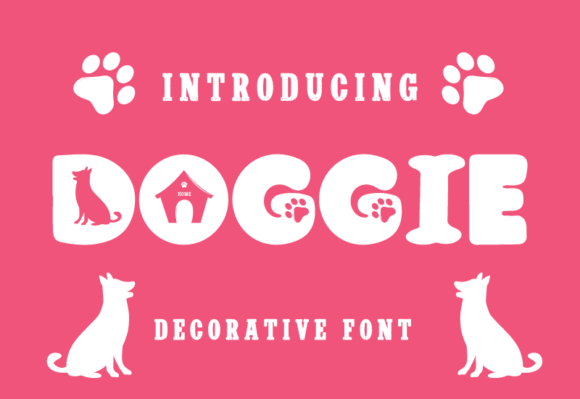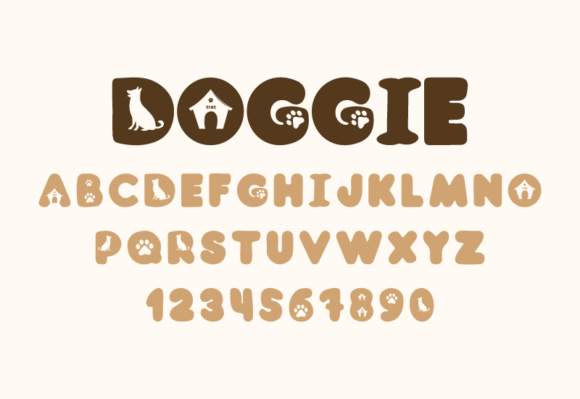
Unleash the Fun with Doggie Font: A Playful Typography for Pet Lovers and Design Enthusiasts
Are you a pet lover, designer, or crafter looking for a typography that captures the playfulness and charm of our furry friends? Look no further than Doggie Font, a unique and captivating typeface that artfully blends animal paw prints, delightful dog silhouettes, and whimsical kennel designs. This energizing font is sure to bring a smile to your face and a touch of personality to your design projects.
The Inspiration Behind Doggie Font
Doggie Font is a typography that celebrates the joy and companionship of dogs. The font’s creator was inspired by the adorable nature of dogs and the special bond they share with their human families. By combining paw prints, dog silhouettes, and kennel designs with traditional typography, Doggie Font brings a fresh and exciting twist to the world of design.
Key Features of Doggie Font
So, what makes Doggie Font so special? Here are some of its key features:
- Playful yet Elegant Elements: Doggie Font seamlessly blends playful and elegant elements, making it perfect for a wide range of design projects, from fun and quirky to sophisticated and stylish.
- Unique Glyphs: The font includes a range of unique glyphs, including dog paw prints, silhouettes, and kennel designs, which can be used to add a touch of personality to your designs.
- High-Quality Typography: Doggie Font is a high-quality typography that is clear, legible, and easy to read, making it perfect for use in a variety of design applications.
Uses for Doggie Font
Doggie Font is a versatile typography that can be used in a wide range of design projects, including:
- Pet-Themed Designs: Doggie Font is perfect for pet-themed designs, such as pet store logos, pet food packaging, and animal shelter marketing materials.
- Playful Stationery: Add a touch of personality to your stationery with Doggie Font, perfect for birthday cards, invitations, and other fun correspondence.
- Fun and Quirky Branding: Doggie Font is ideal for brands that want to convey a playful and fun personality, such as children’s clothing, toys, and games.
- Crafting and Scrapbooking: Doggie Font is a great addition to any crafter’s or scrapbooker’s toolkit, perfect for creating personalized and unique projects.
Tips for Using Doggie Font
Here are some tips for getting the most out of Doggie Font:
- Experiment with Different Sizes: Doggie Font looks great in a variety of sizes, from small and delicate to large and bold.
- Combine with Other Fonts: Try pairing Doggie Font with other fonts to create a unique and eye-catching design.
- Use the Unique Glyphs: Don’t be afraid to get creative with the unique glyphs in Doggie Font, such as the paw prints and dog silhouettes.
Doggie Font is a captivating typography that is sure to bring a touch of playfulness and charm to your design projects. With its unique blend of animal paw prints, delightful dog silhouettes, and whimsical kennel designs, this font is perfect for pet lovers and design enthusiasts alike. Whether you’re creating pet-themed designs, playful stationery, or fun and quirky branding, Doggie Font is the perfect choice.
So why not give Doggie Font a try today and see how it can add a touch of personality to your designs?